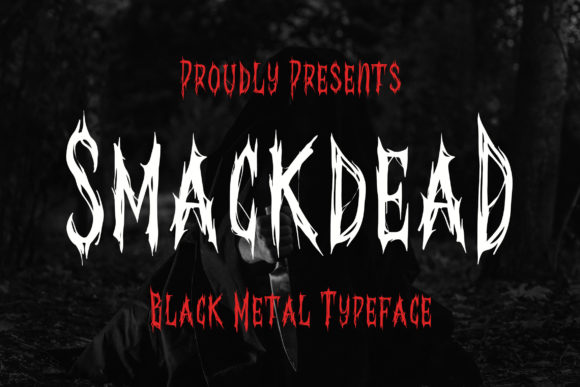
Unleash the dark allure of Smackdead, a blackletter font that grips you with its raw power and sinister elegance. Inspired by the chilling tales of the undead, Smackdead exudes an ominous aura that's perfect for conjuring up spine-tingling designs. Immerse yourself in its macabre beauty, letting the jagged edges and sharp angles pierce through your creative visions.
With Smackdead, you hold the key to unlocking a world of haunting visuals. Its menacing strokes, reminiscent of ancient tombstones, add a touch of gothic charm to your designs. Whether you're crafting movie posters, album covers, or Halloween invitations, Smackdead will send shivers down the spines of your audience.
As a creation of Blankids Studio, Smackdead Font takes pride in its uniqueness. It stands as a testament to the boundless creativity of the human mind. Its dark and twisted aesthetics are sure to leave an unforgettable mark on your designs, making them as haunting as they are captivating.